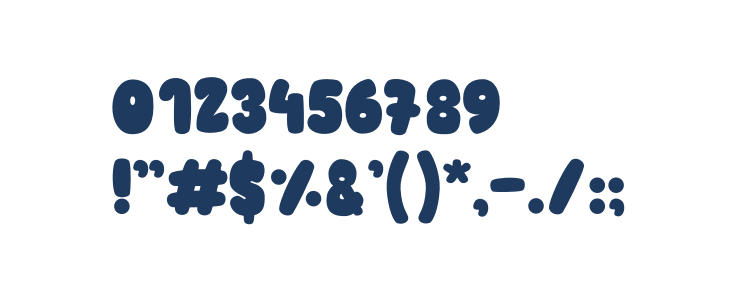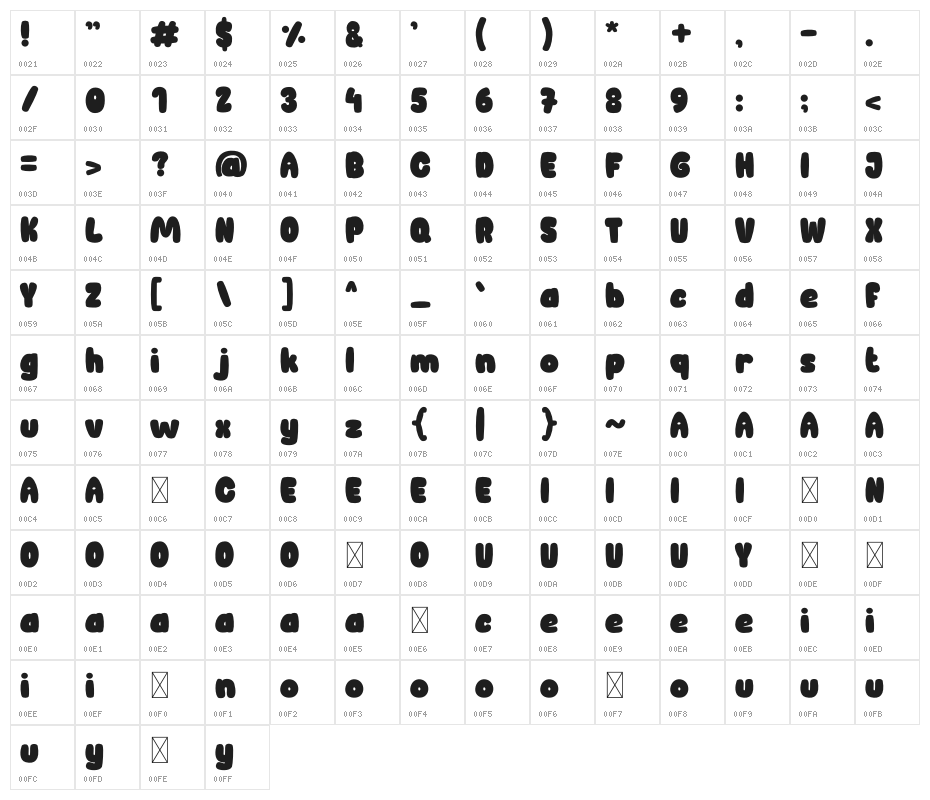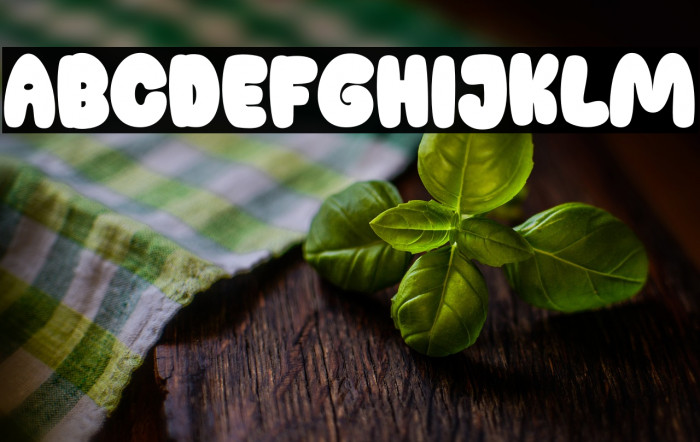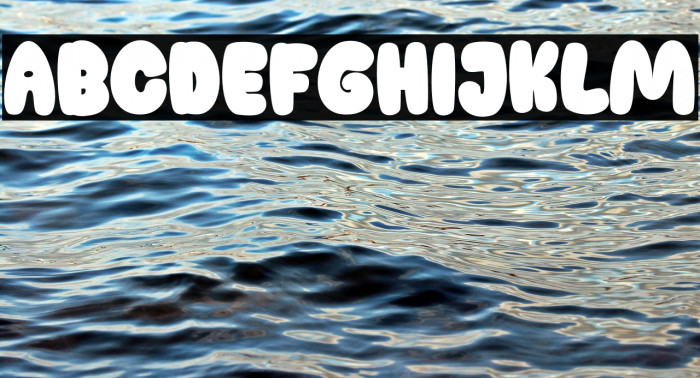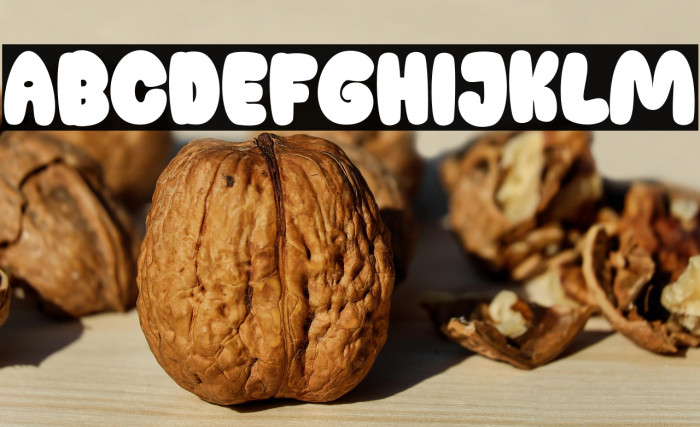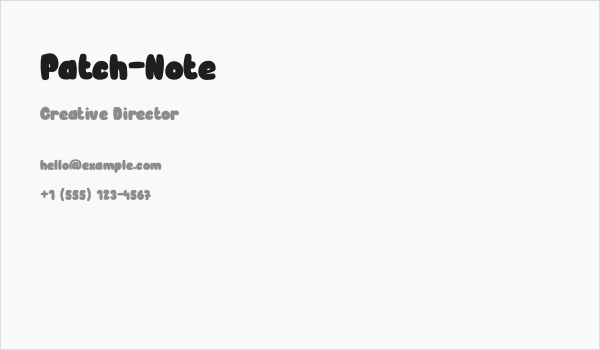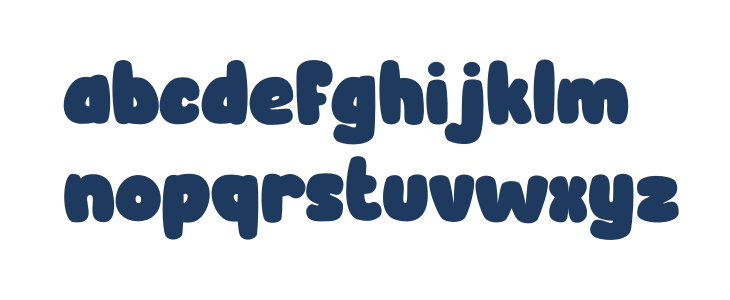
Patch-Note Font
Patch-Note Description
This font features a bold, playful style with rounded, bubbly characters. Each letter is thick and substantial, giving a sense of fun and approachability. The characters are evenly spaced, with a consistent width that maintains readability despite their unique shape. The numbers and special characters follow the same design principles, ensuring a cohesive look across all elements. This font's design is reminiscent of retro or vintage styles, yet it maintains a modern appeal due to its simplicity and boldness.
| Overall Style | Playful, Retro |
| Proposed Projects | Ideal for children's books, playful branding, posters, and any project needing a fun, approachable aesthetic. |